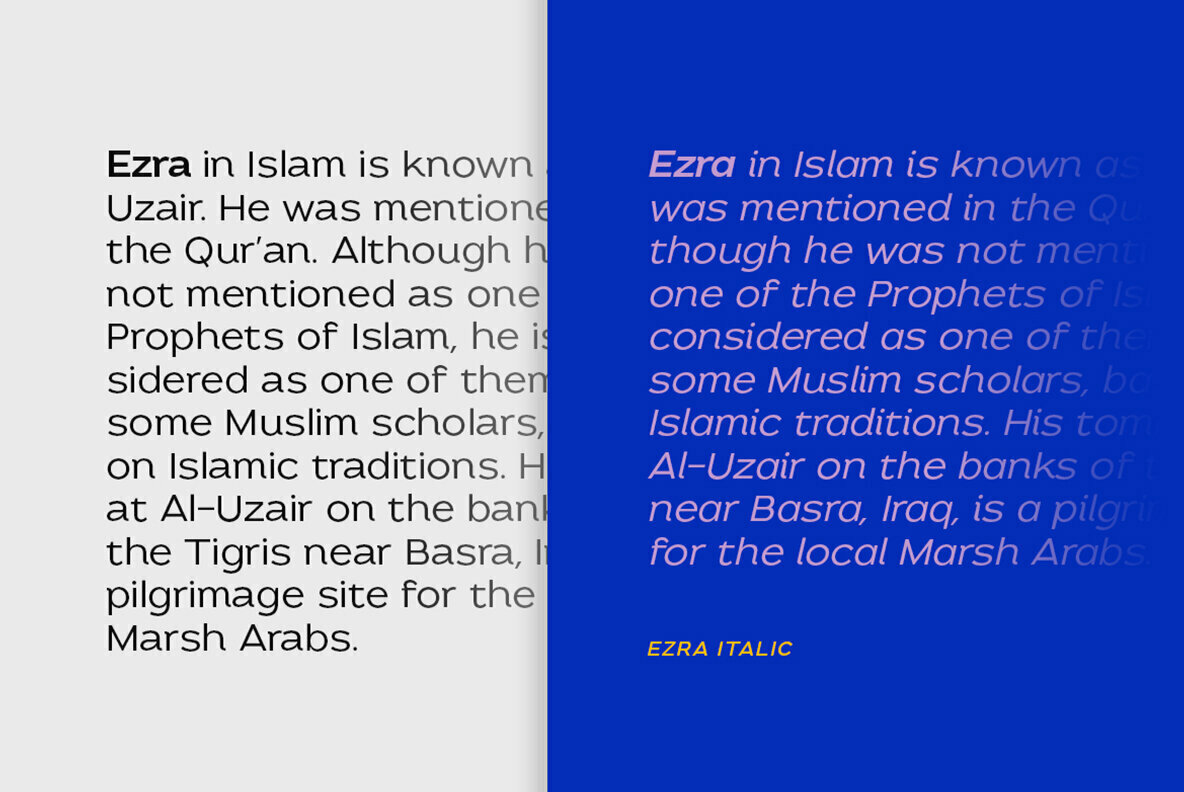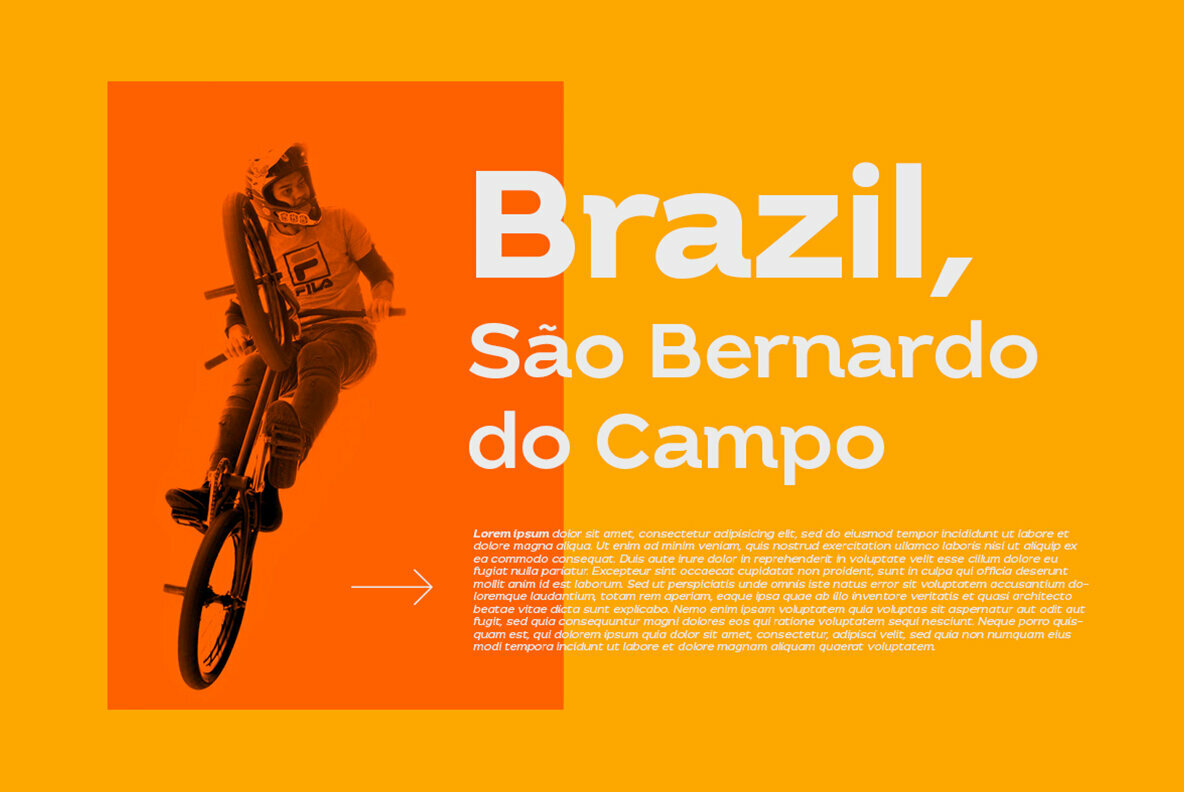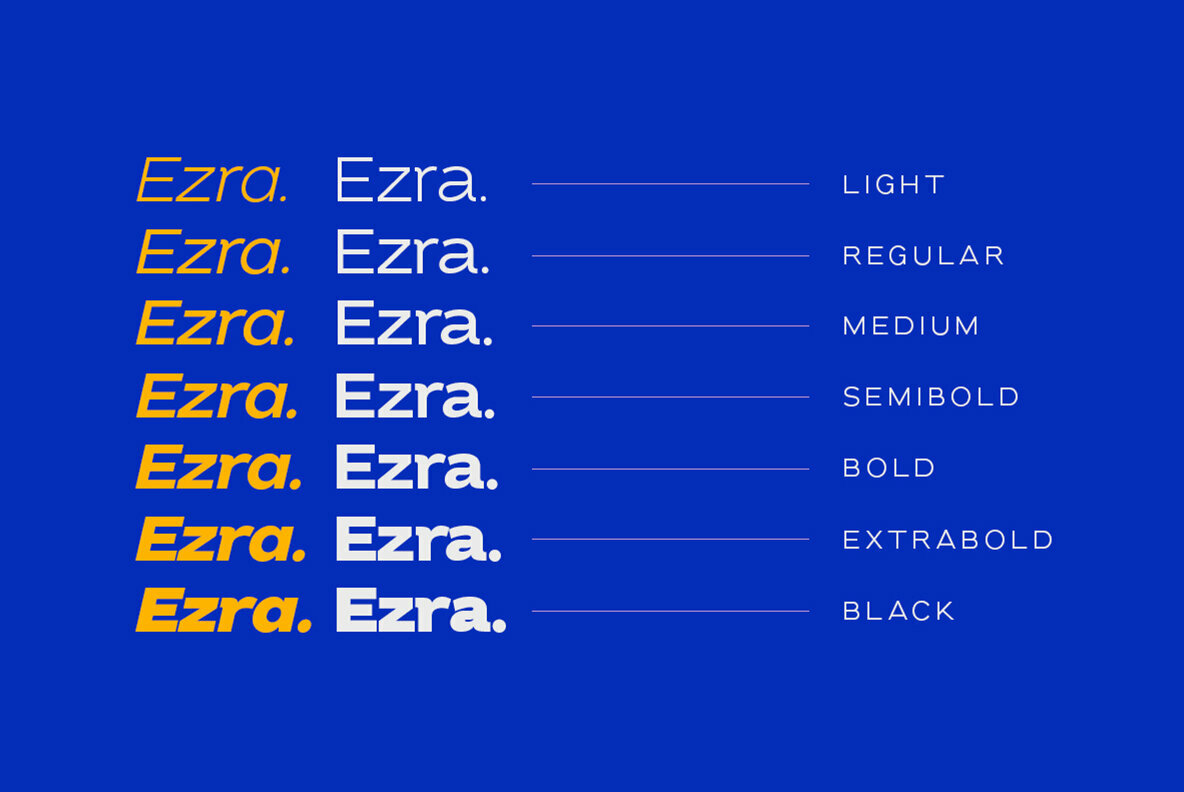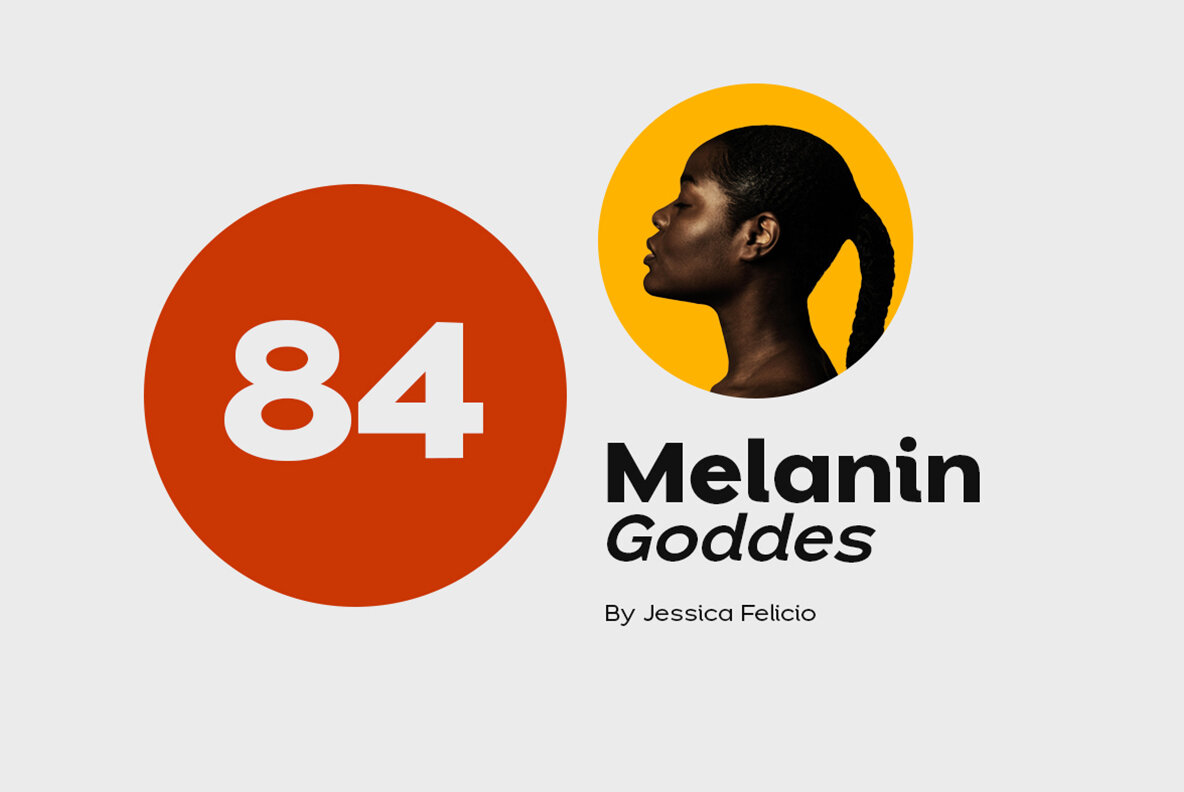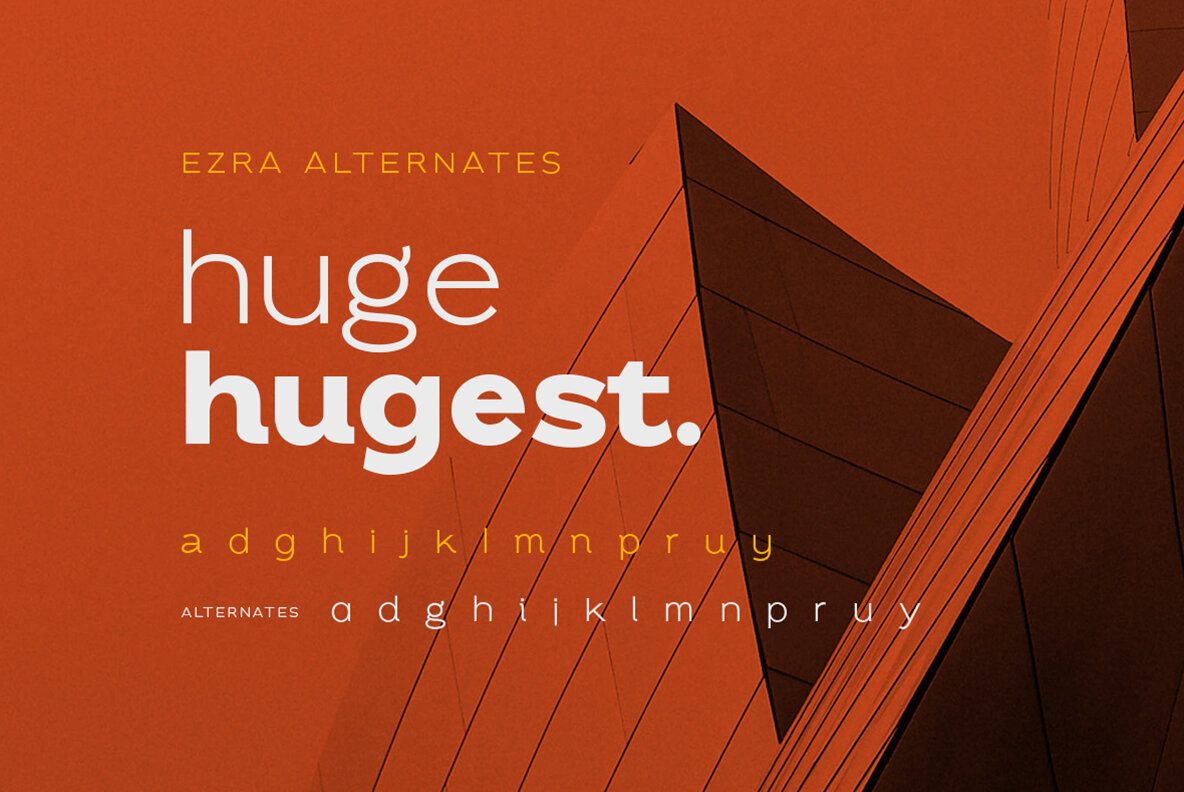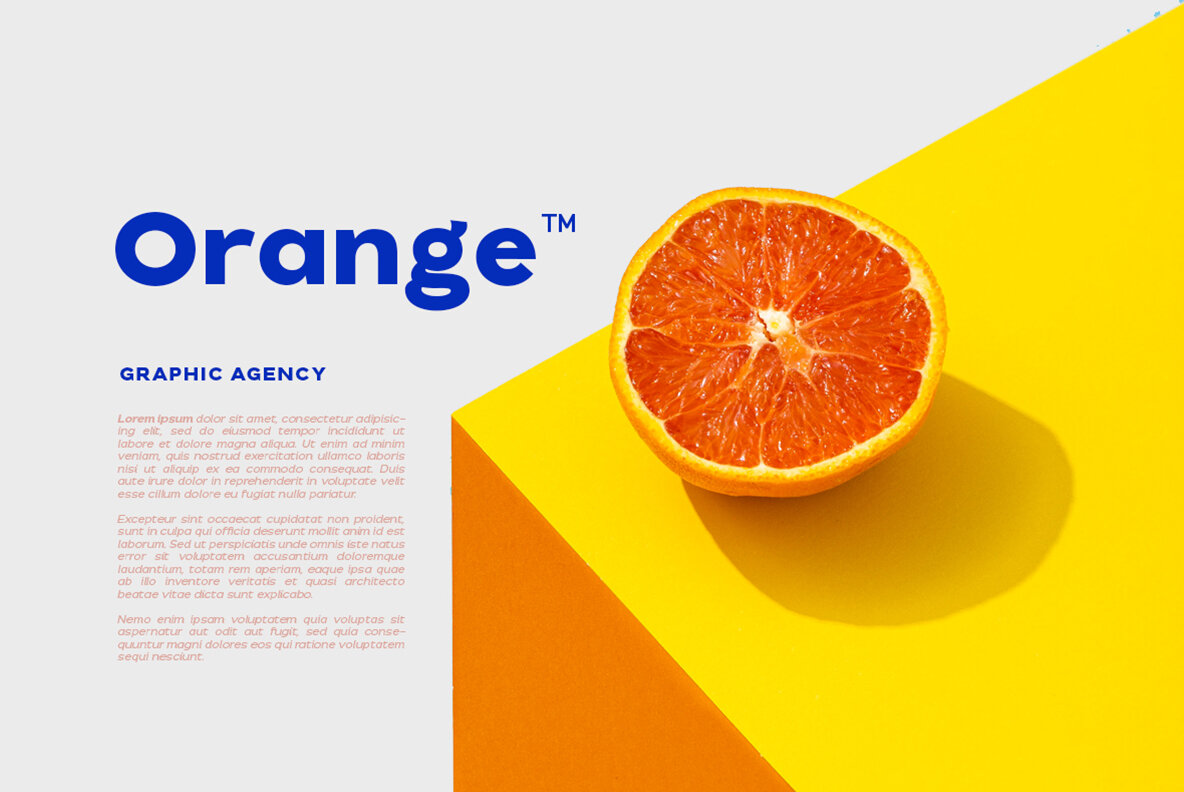
Ezra Font
In the realm of typography, Ezra Sans emerges as a quintessential companion for designers seeking a relaxed yet contemporary feel. Its wide form and modern details endow any project with a casual flair, enhancing the aesthetics of titles, logos, or quotes. This font includes alternate characters, adding an extra level of sophistication and uniqueness. Suitable for both standalone and paired applications, Ezra Sans effortlessly adapts to various contexts.Ezra Sans: A Casual and Modern Typeface